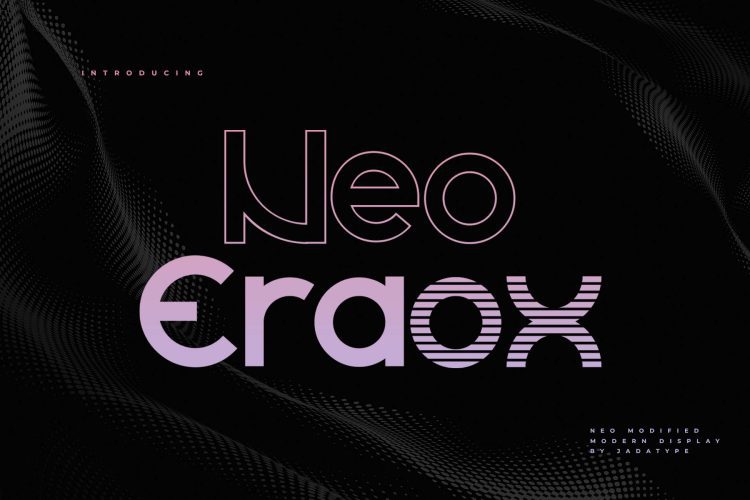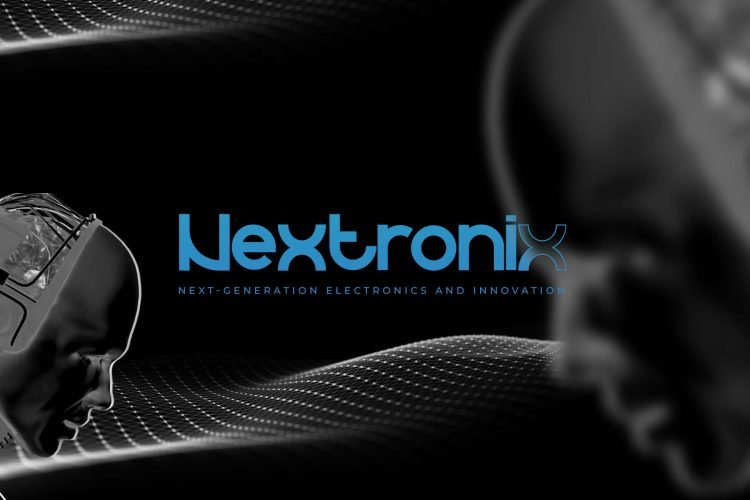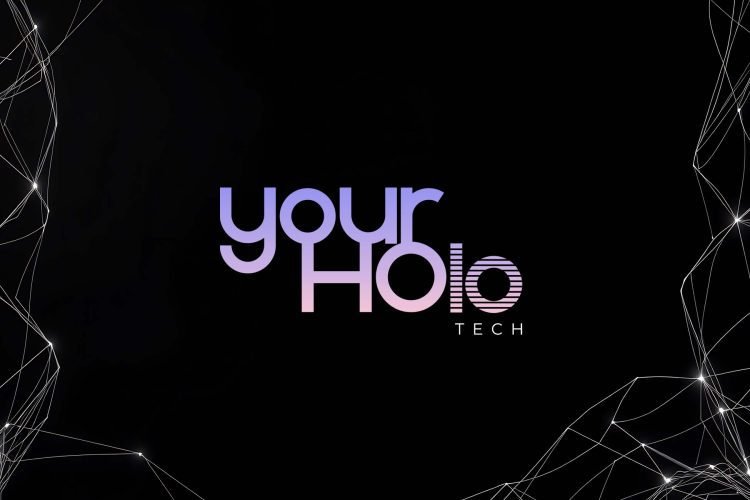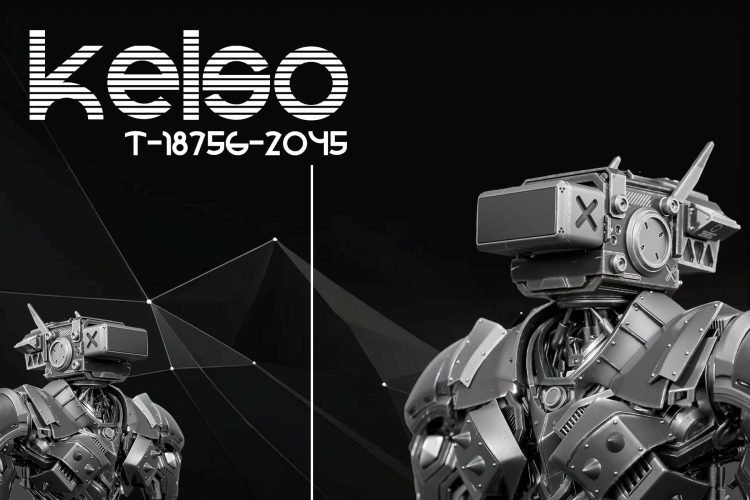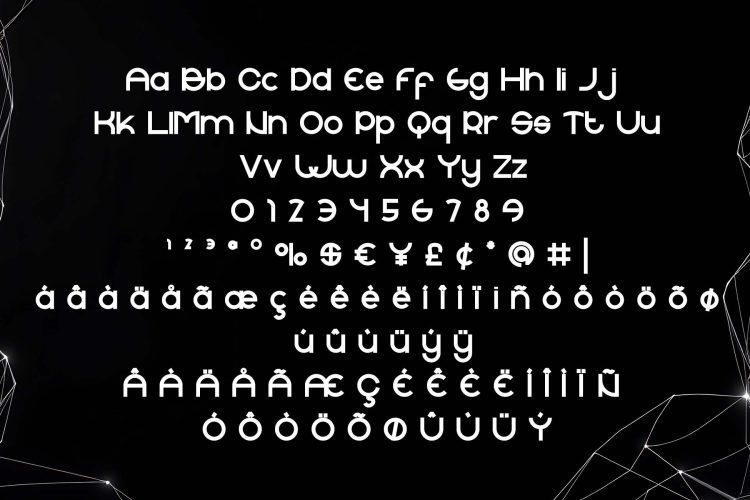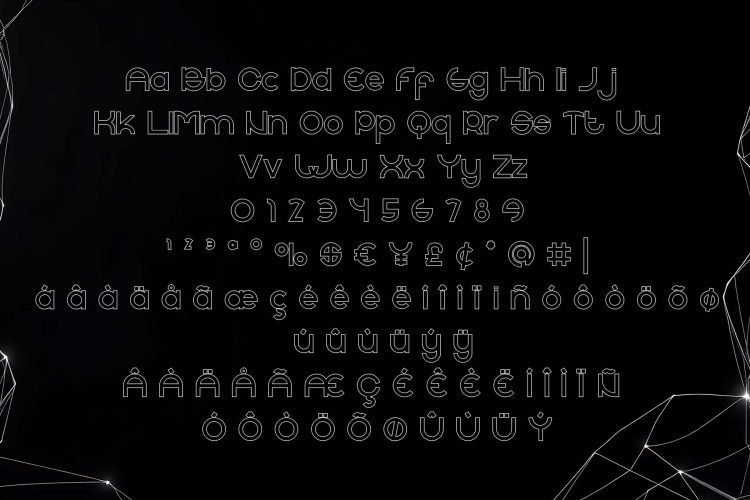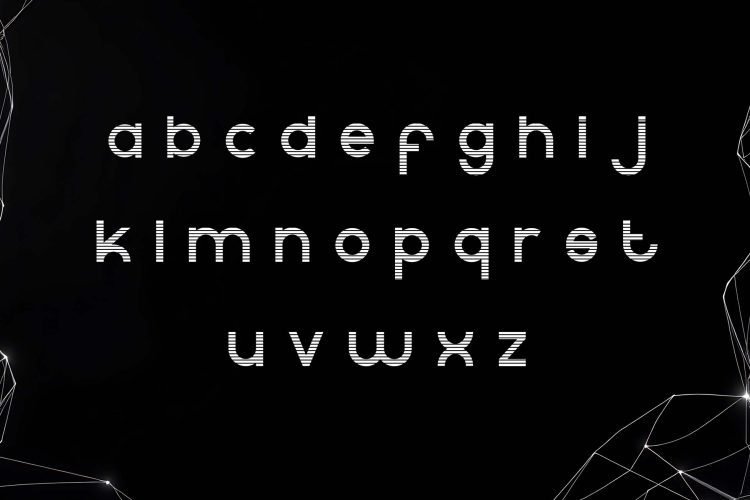
Neo Eraox is a neo futuristic display font. It has a unique and modern style that makes it perfect for flyers, games, posters, and more. also, It can complement a modern work, perfect for logo use or as a companion to your logogram. contains standard English letters, numbers, punctuation, Ligatures and several accents that support multilingualism.